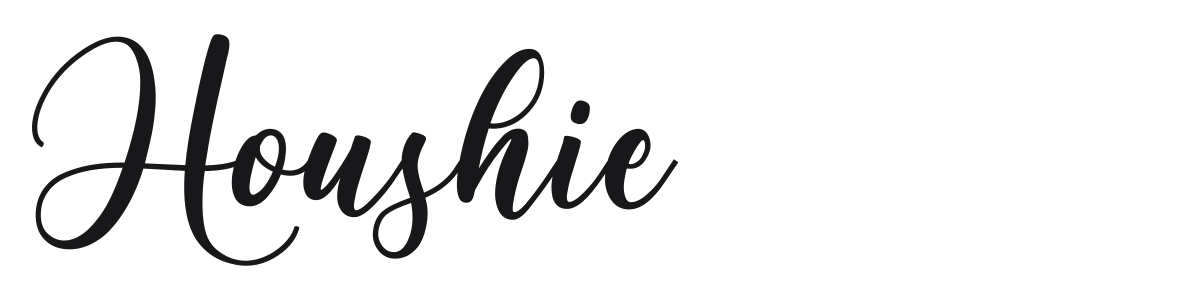
Houshie
by Makashi
Houshie is a bold brush-calligraphy script with high stroke contrast and an energetic, bouncy baseline that gives it unmistakable handmade warmth. Thick downstrokes meet delicate hairline connectors in a continuous flowing rhythm, leaning gently to the right. It carries the kind of personality that works across wedding stationery, artisan branding, and lifestyle packaging alike.